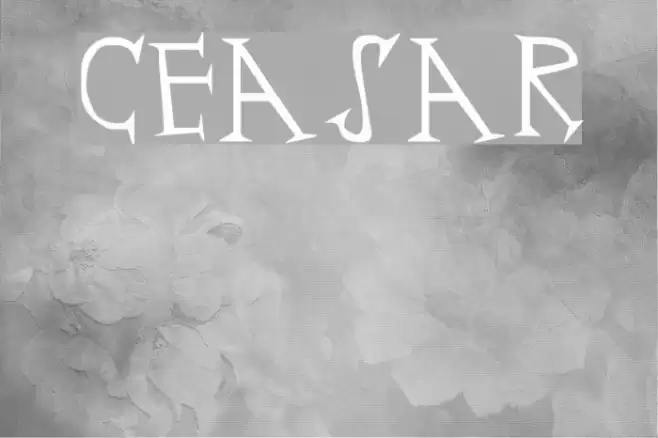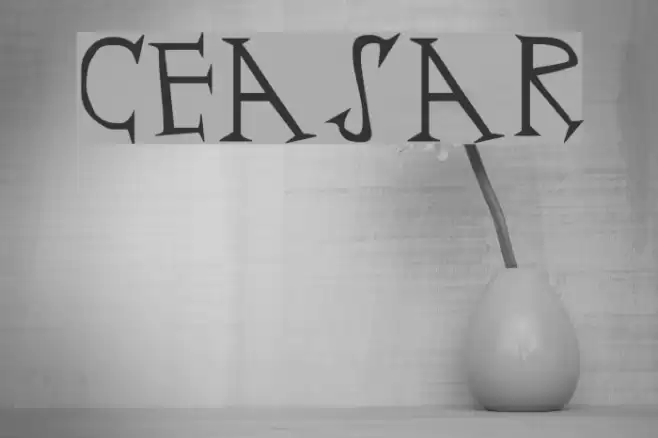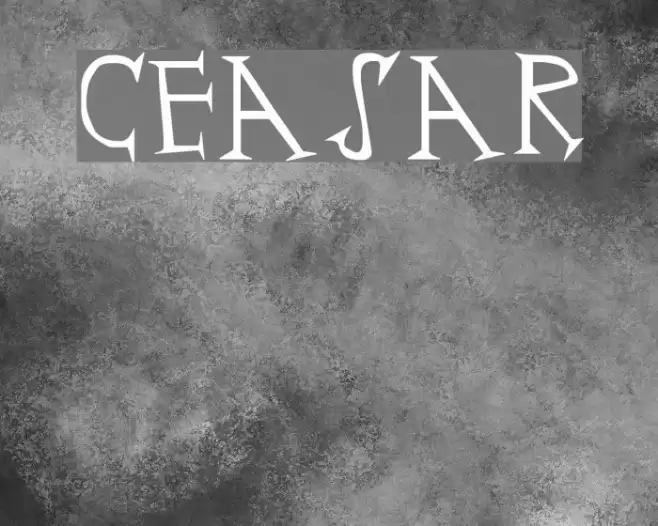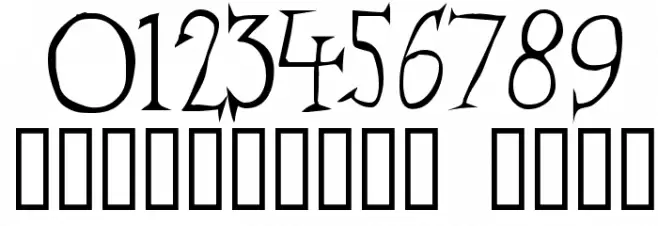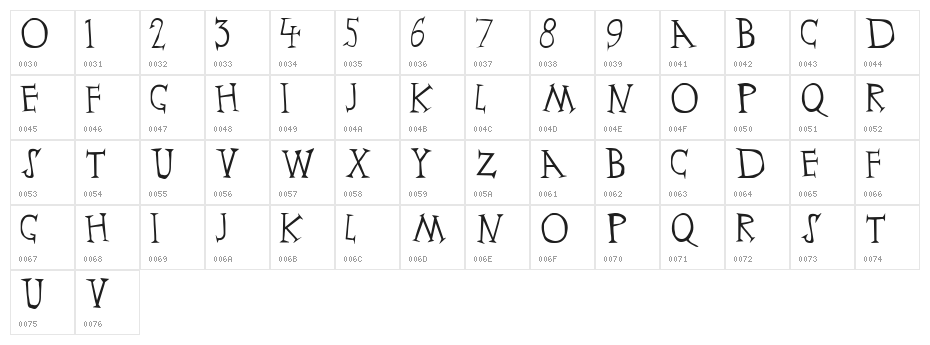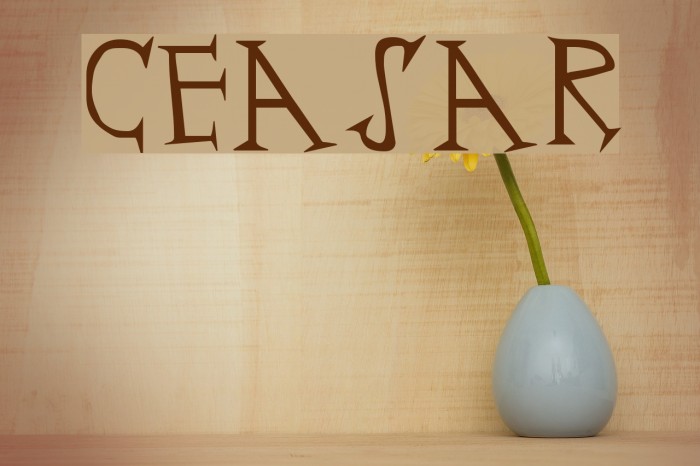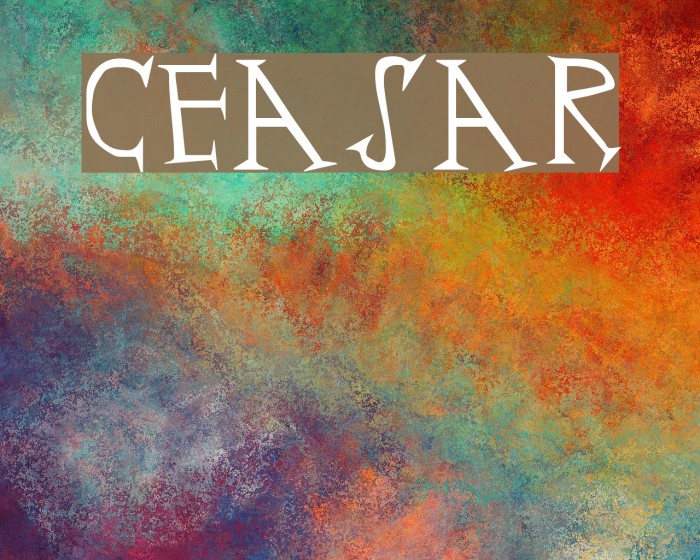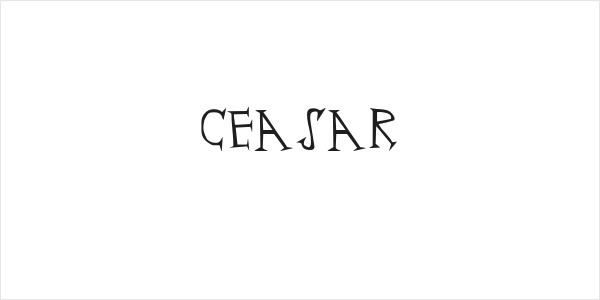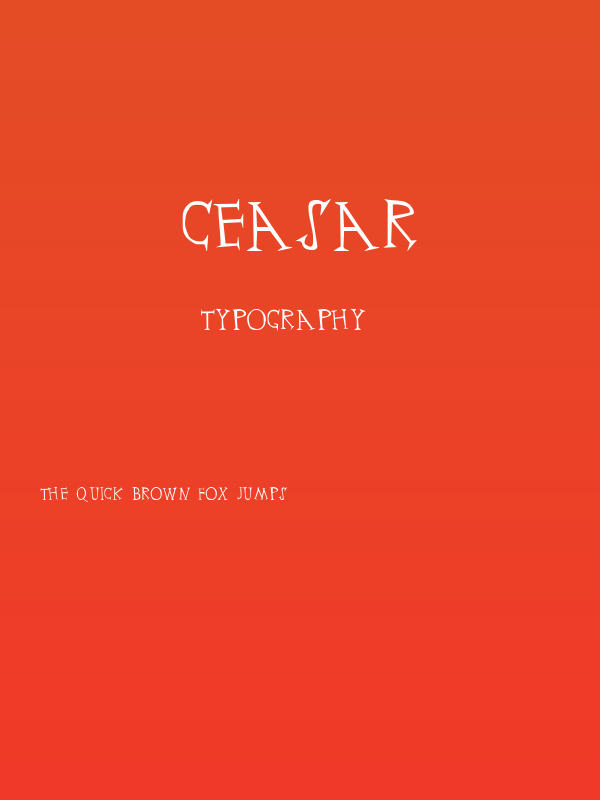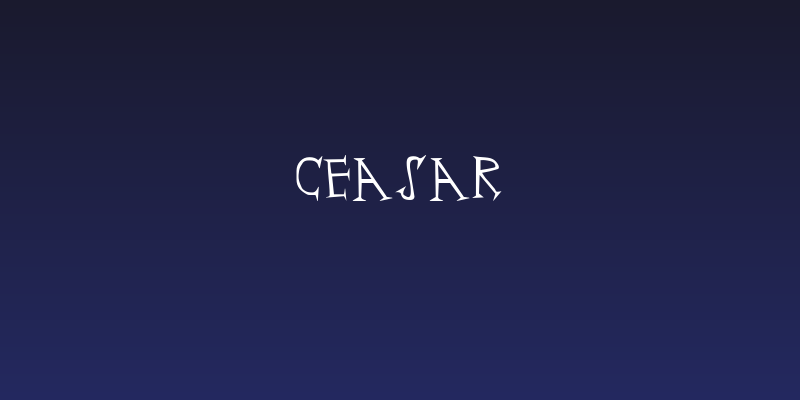
Ceasar Font
Ceasar Description
This font features a distinctive, sharp-edged style that evokes a sense of ancient or historical significance. The characters are bold and angular, with a unique flair that suggests a blend of classical and modern influences. The uppercase letters are particularly striking, with exaggerated serifs and a slightly condensed form that adds to their commanding presence. The lowercase letters maintain the same sharpness and angularity, ensuring consistency across the typeface. The numerals are equally bold, with a dynamic appearance that complements the overall aesthetic. This font is well-suited for projects that require a touch of drama and sophistication, such as historical-themed designs, book covers, or branding for luxury products.
A bold, angular font with sharp edges and a historical flair from Cartoon fonts.
- Proposed Projects: Ideal for historical-themed designs, book covers, luxury branding, and dramatic posters.
- Overall Style: Historical, Dramatic